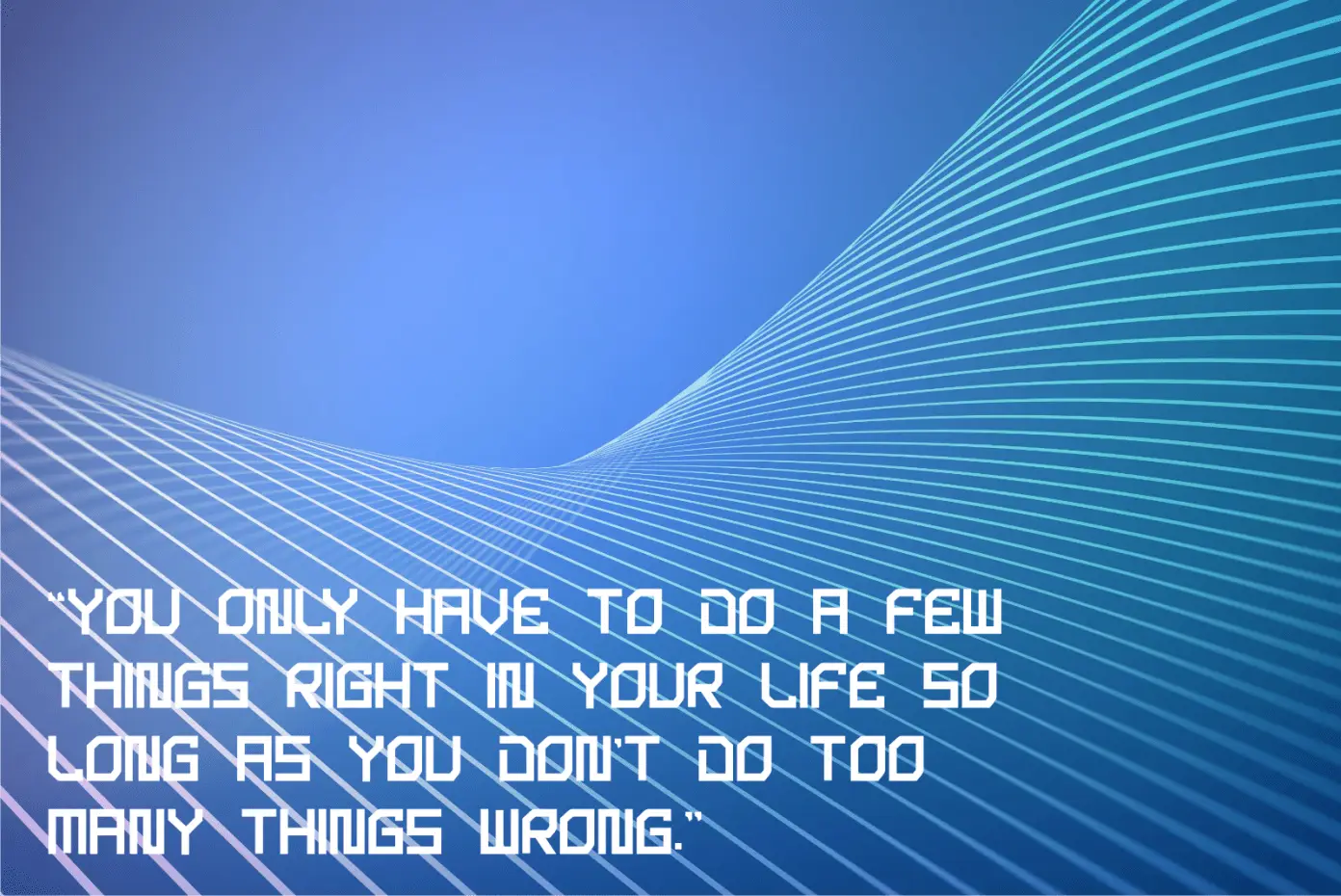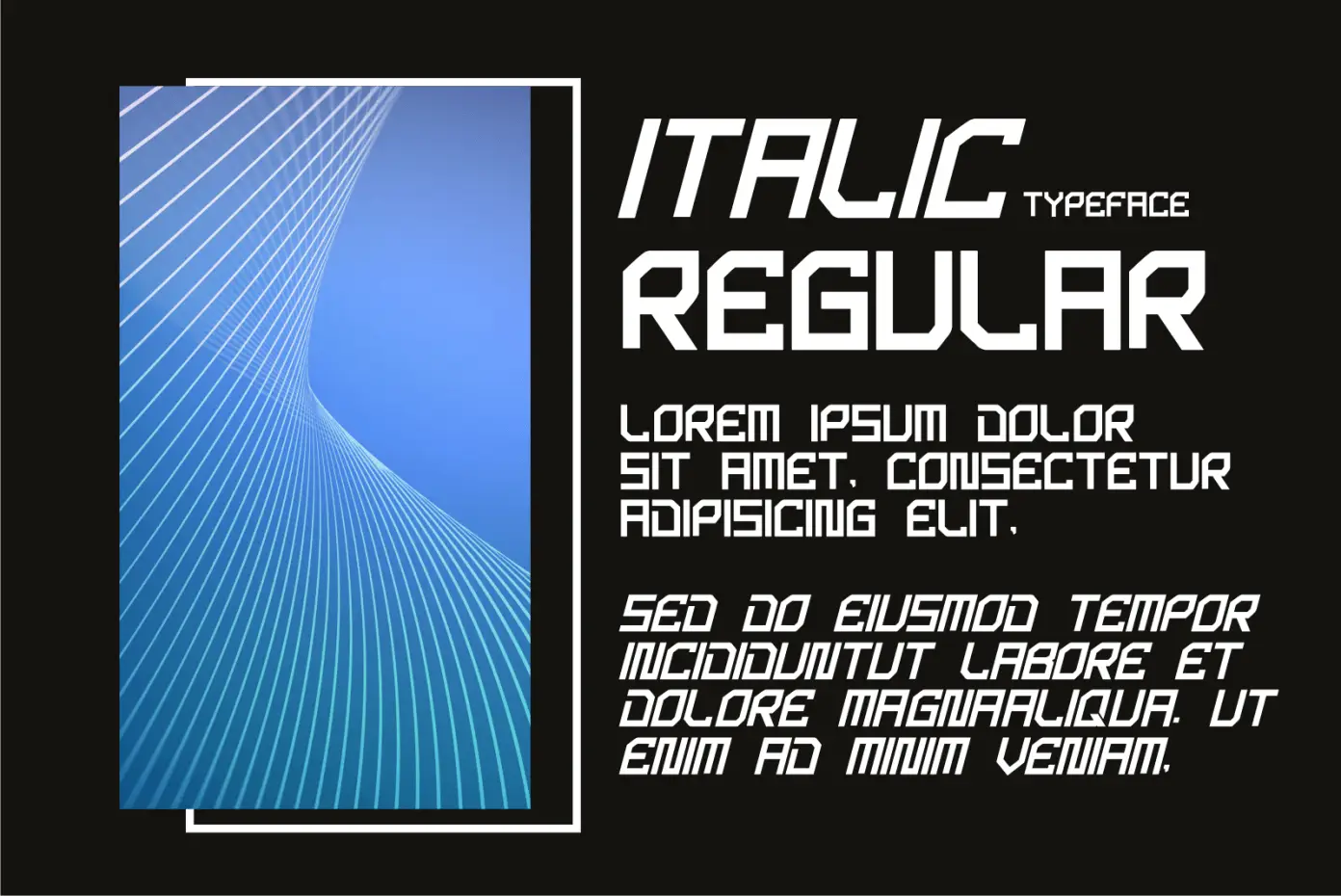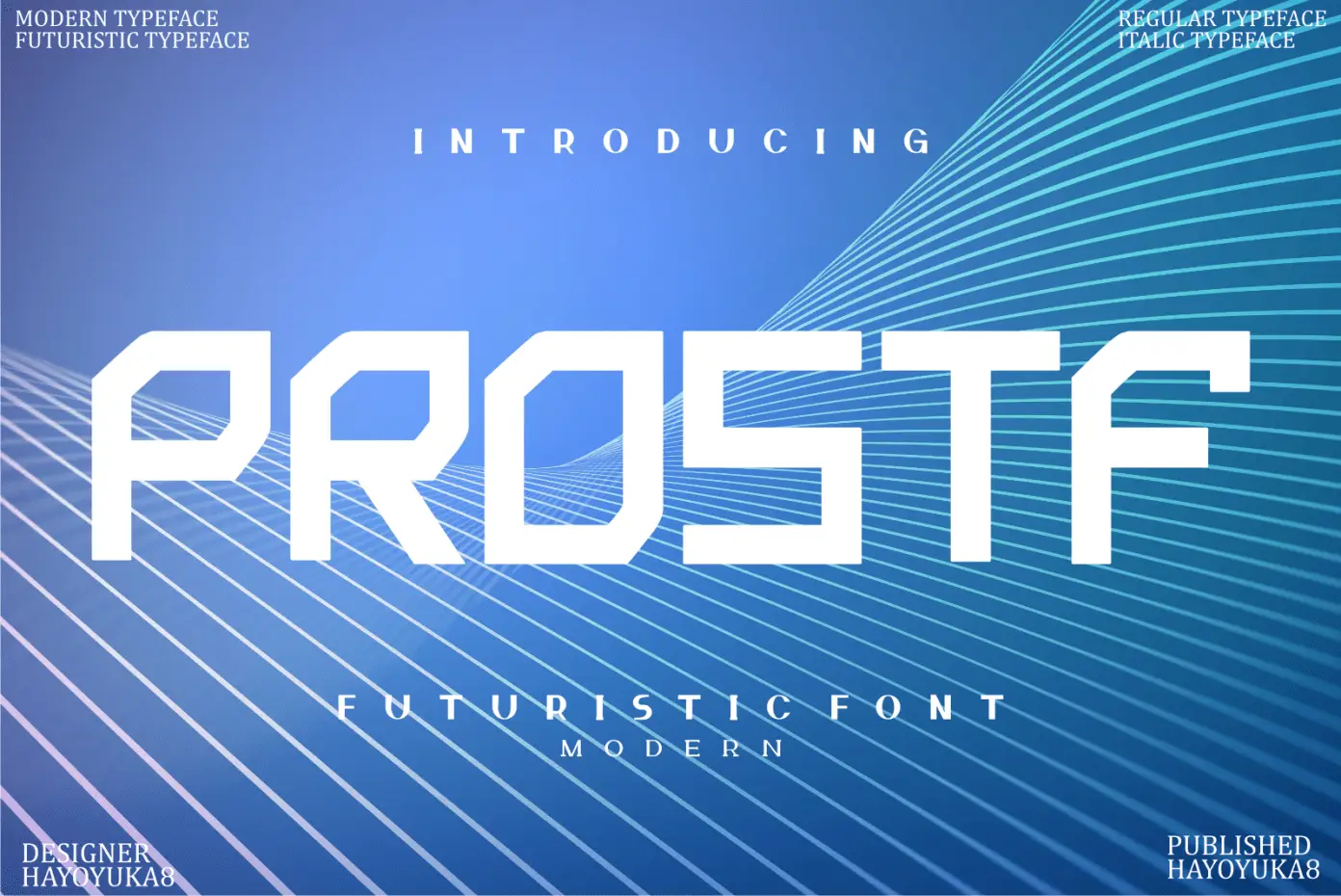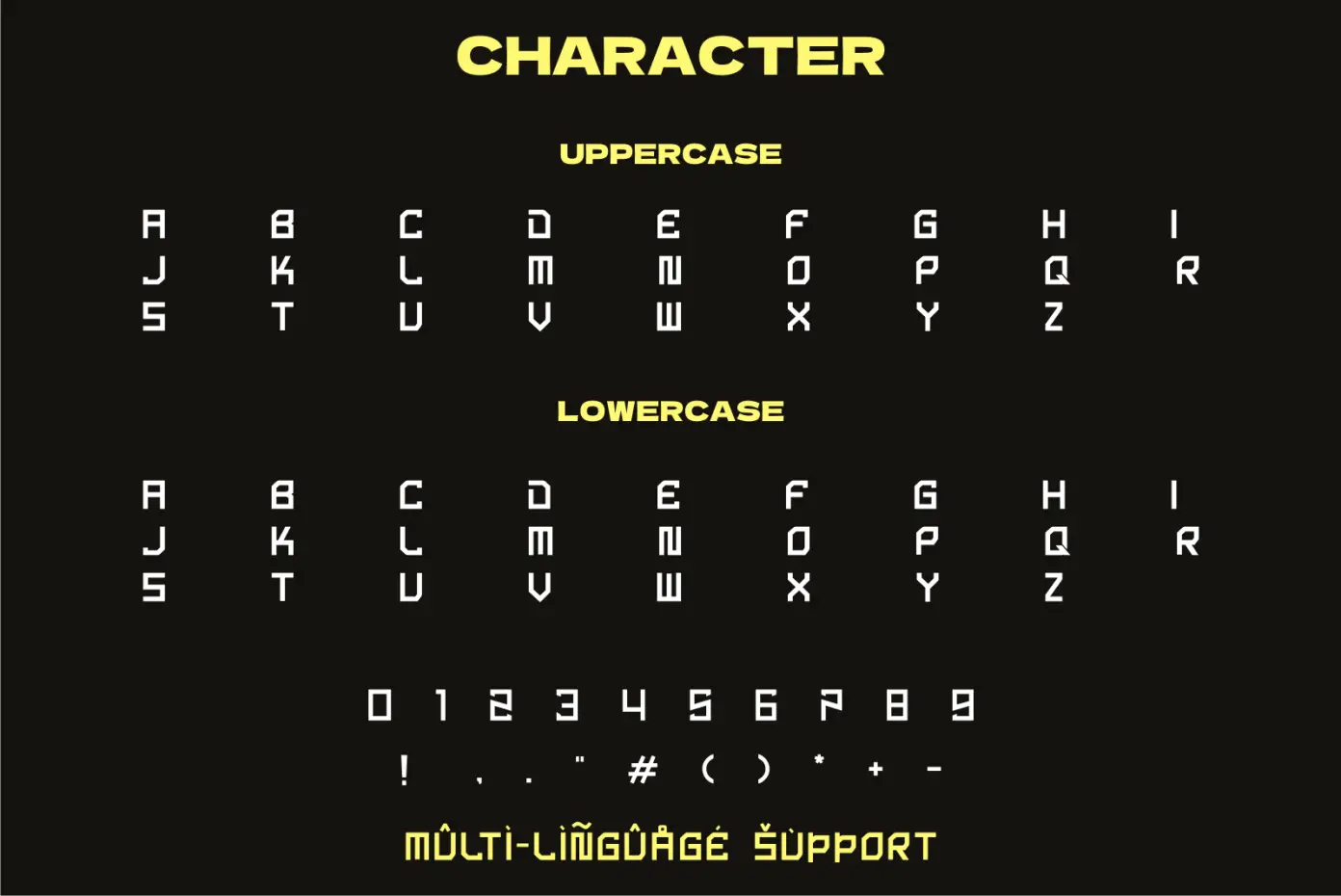
Prostf Display Font
The Prostf Display Font is a striking typeface designed to make a statement. With its bold and unique character, this font is perfect for eye-catching headlines, branding, and promotional materials.
• Stylish and modern design
• Special characters and symbols included
This font is ideal for use in branding, logos, website headers, and print materials. Its distinctive style ensures that your designs stand out.